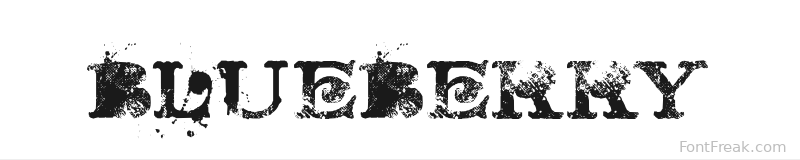
BLUEBERRY
About BLUEBERRY
The BLUEBERRY font, designed by Billy Argel Fonts in 2008, is a striking display typeface that captures attention with its unique character. This decorative font features a bold and slightly distressed style, giving it an organic, handcrafted feel that is both playful and artistic. The stroke weight is variable, adding depth and texture, while the contrast between thick and thin lines creates a dynamic visual interest. The spacing is well-balanced, ensuring readability, even in larger sizes. The decorative elements, including subtle imperfections and splatters, enhance its rustic charm, making it perfect for various creative applications.
BLUEBERRY excels in use cases that require a touch of personality and flair. It is ideal for crafting eye-catching wedding invitations that stand out to guests, as well as vibrant movie posters that capture the essence of the film. Restaurant menus can benefit from this font's artistic style, drawing diners in with its inviting appearance. Additionally, it suits branding for artisan shops or craft businesses, where a creative touch is essential to convey the brand's identity. With its engaging design, BLUEBERRY appeals to graphic designers, small business owners, and content creators looking to add a distinctive element to their projects.
What sets the BLUEBERRY font apart is its ability to fuse creativity with functionality. Its unique visual characteristics make it a versatile choice for a wide range of applications, from print to digital media. As a freeware option, it invites users to explore its potential without the constraints of licensing fees. Whether you are designing for personal projects or professional needs, the BLUEBERRY font free download offers an exceptional tool for enhancing your creative expression. Embrace the charm and originality of BLUEBERRY to elevate your designs today.